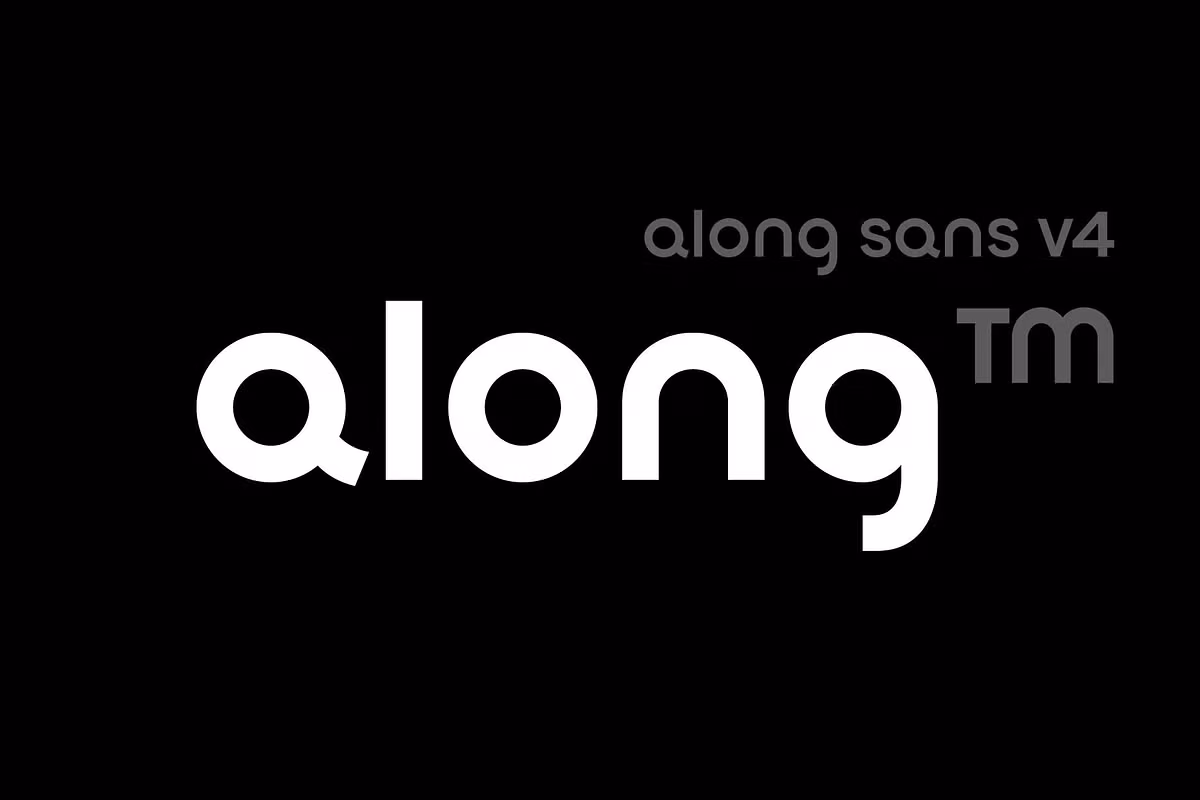
Along Sans Font Family v4 Free Download is a clean, modern sans-serif font family designed for versatile use in both digital and print designs. Offering a wide range of weights and styles, this font family is perfect for branding, web design, editorial work, product packaging, and more.
With its geometric shapes and balanced letterforms, Along Sans Font Family v4 Free Download provides excellent legibility and a contemporary feel, making it ideal for professional and minimalist design projects.